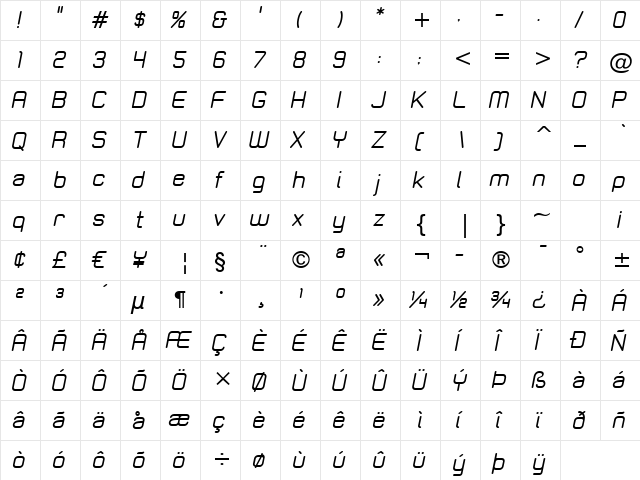
Zolano Sans BTN Oblique
Design Context for Zolano Sans BTN Typeface
Zolano Sans BTN is a composed and adaptable typeface that performs quietly and consistently across a wide range of design contexts. The slanted form adds forward momentum and visual energy.